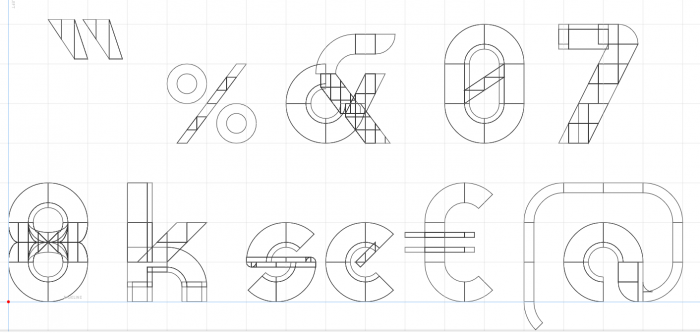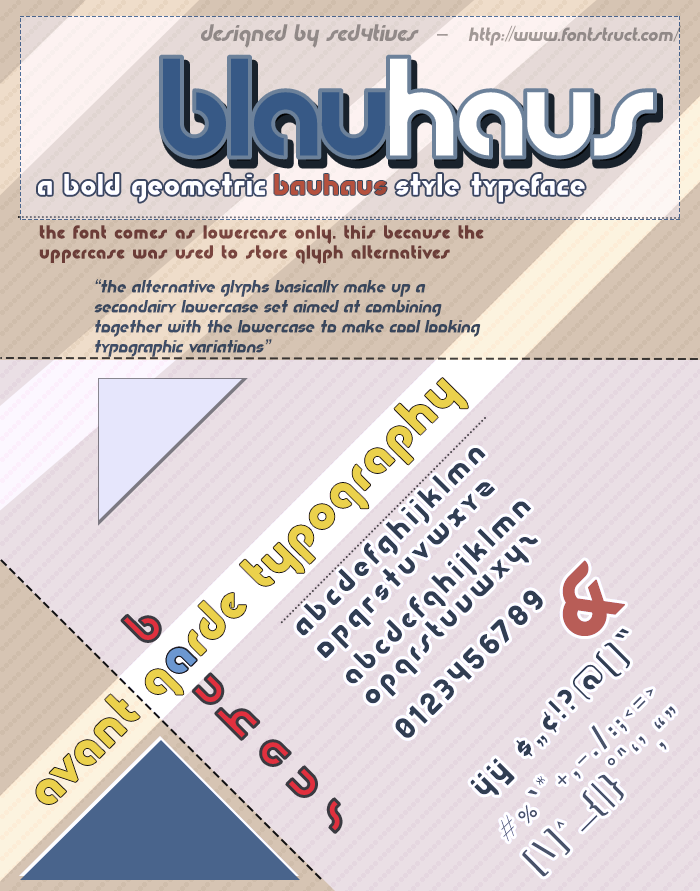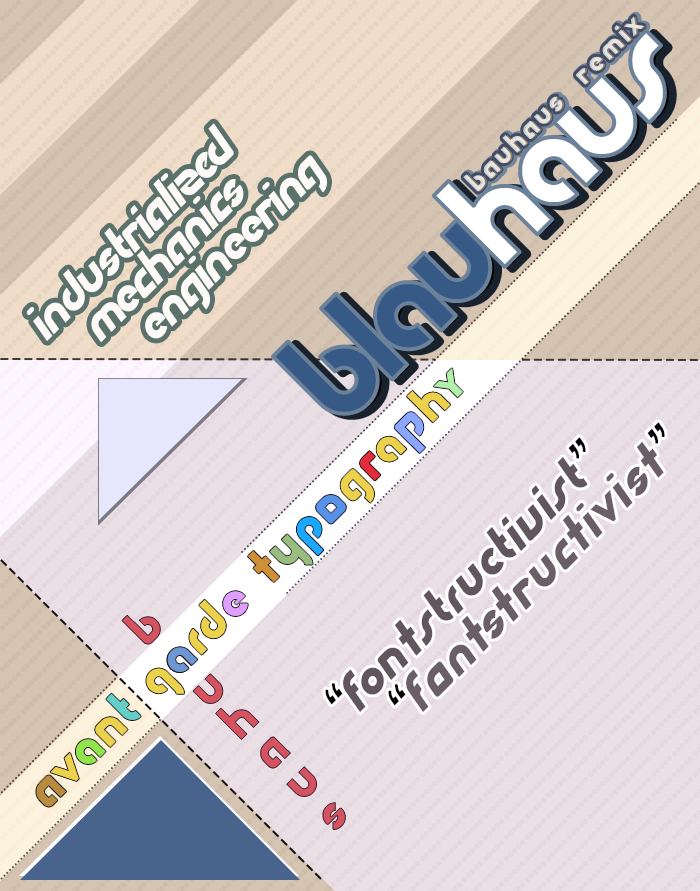
• BLAUHAUS - Bold Bauhaus inspired geometric typeface.
I know there is tons of out there already, but I had to do one myself...
It's far from perfect, but it was made on a very tiny grid space, so a whole lot of space to occupy with bricks wasn't a luxury this one!  (I'll demonstrate a example below)
Still I think it looks pretty rad so far!
Wow! If anyone can build a complex font without filters... I'm impressed this only uses 1x1 filters... Nice!
I think it uses bricks from the 5/8 widths set you created...
& is really nice
And spot on! those bricks make a good tool for a bauhaus style font...
I really loved doing this font